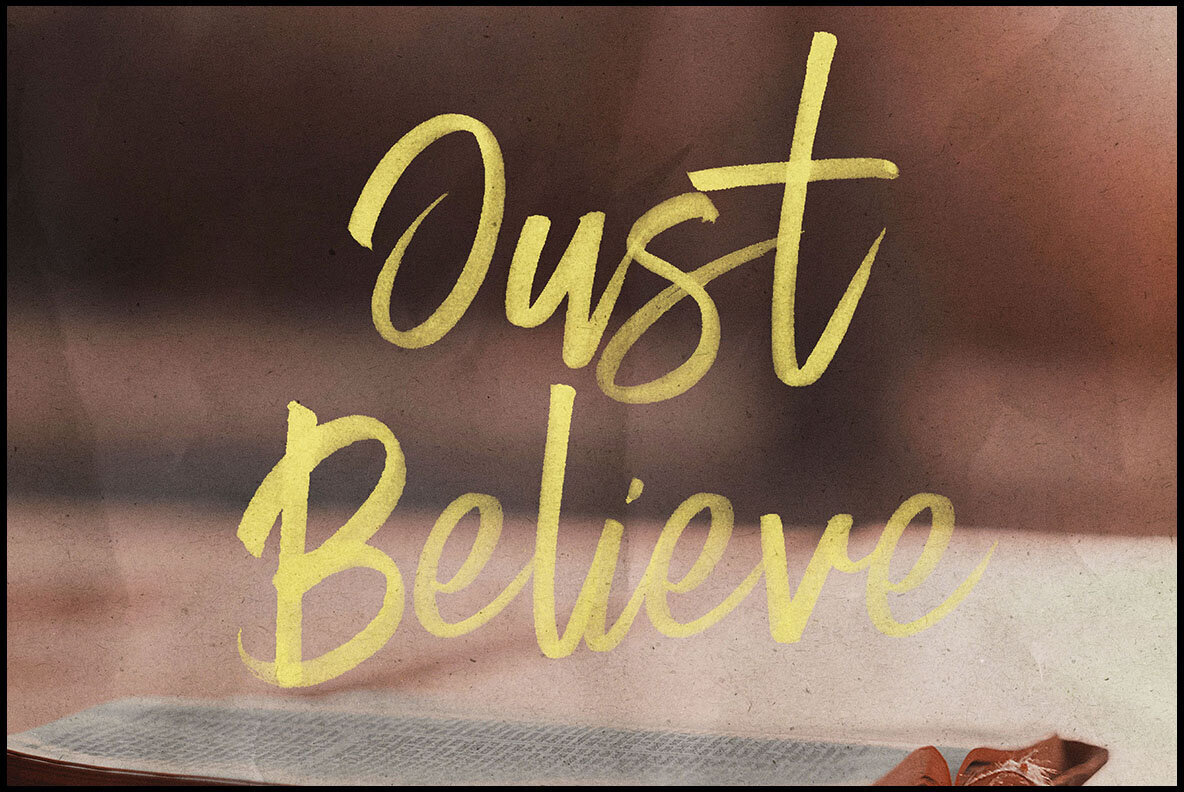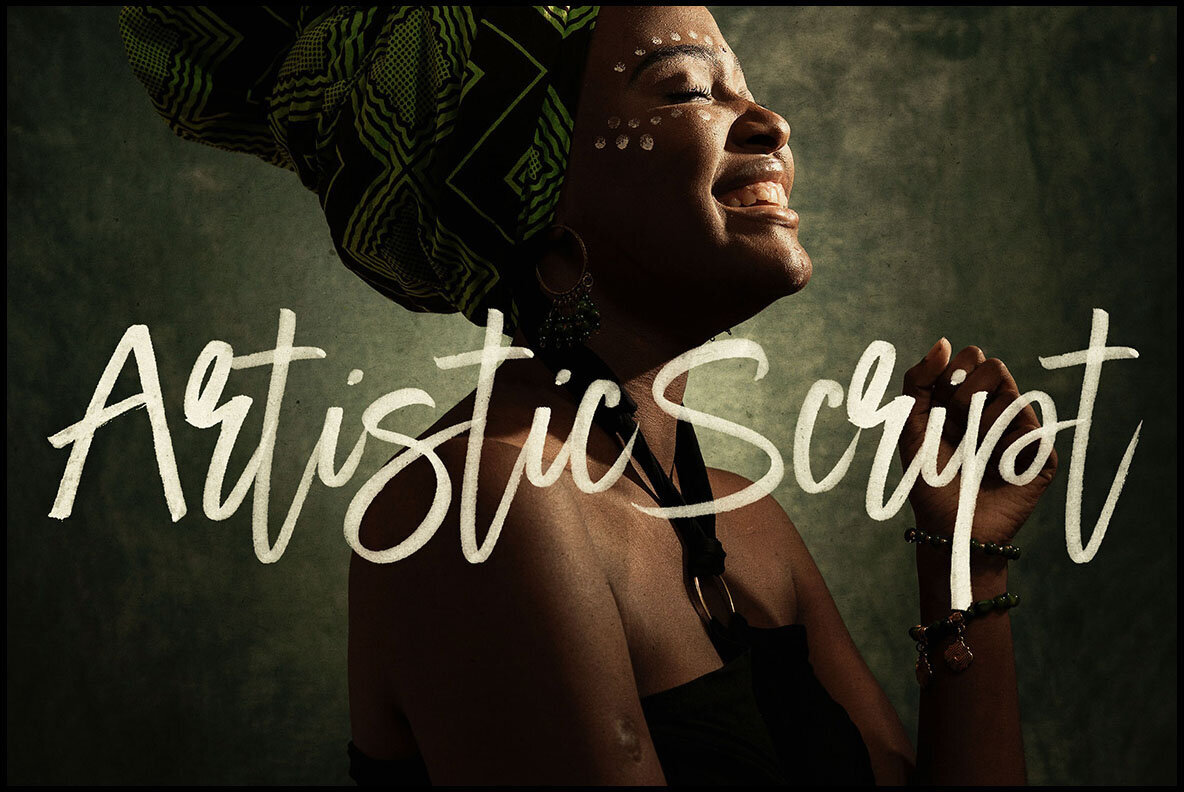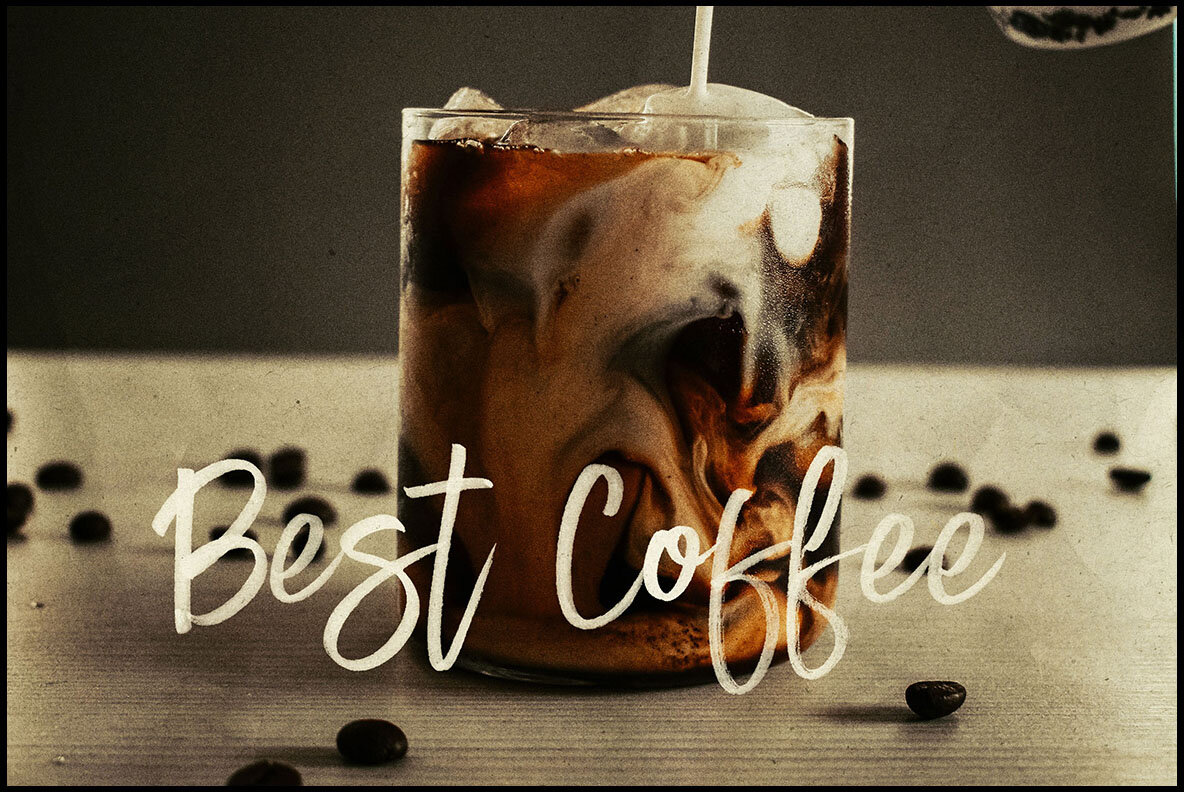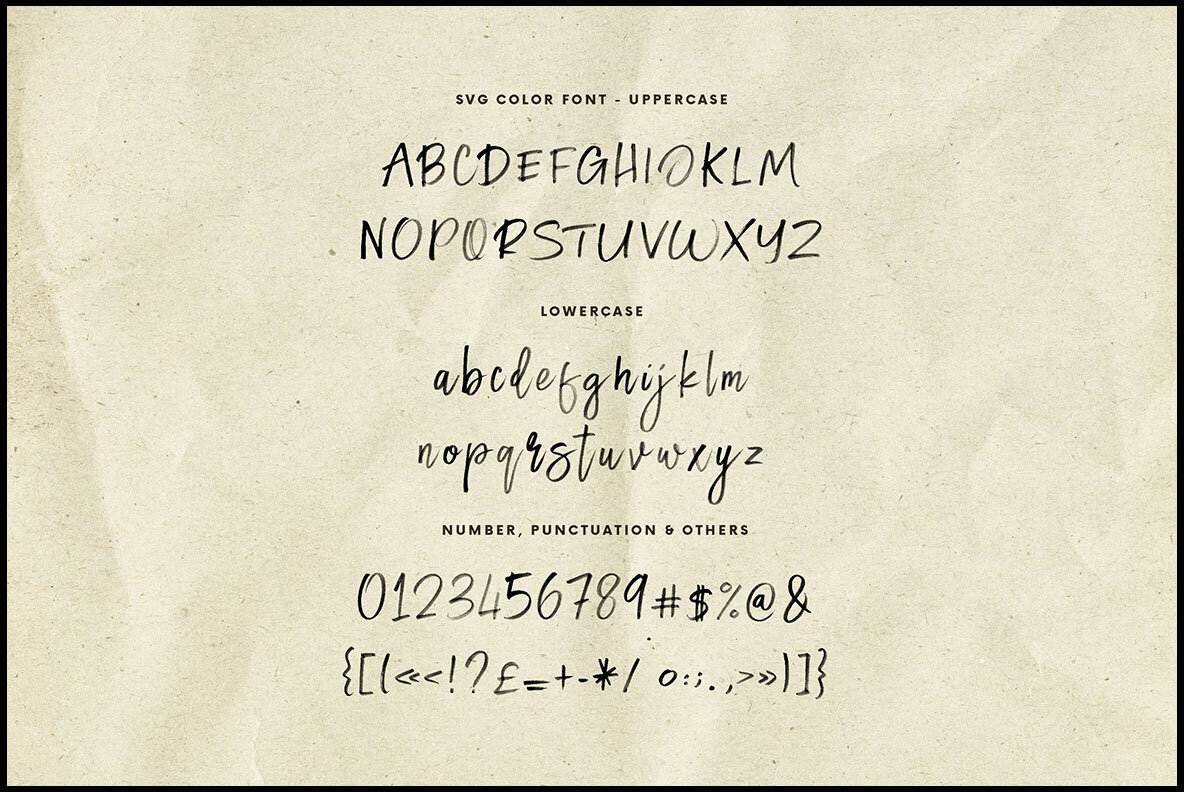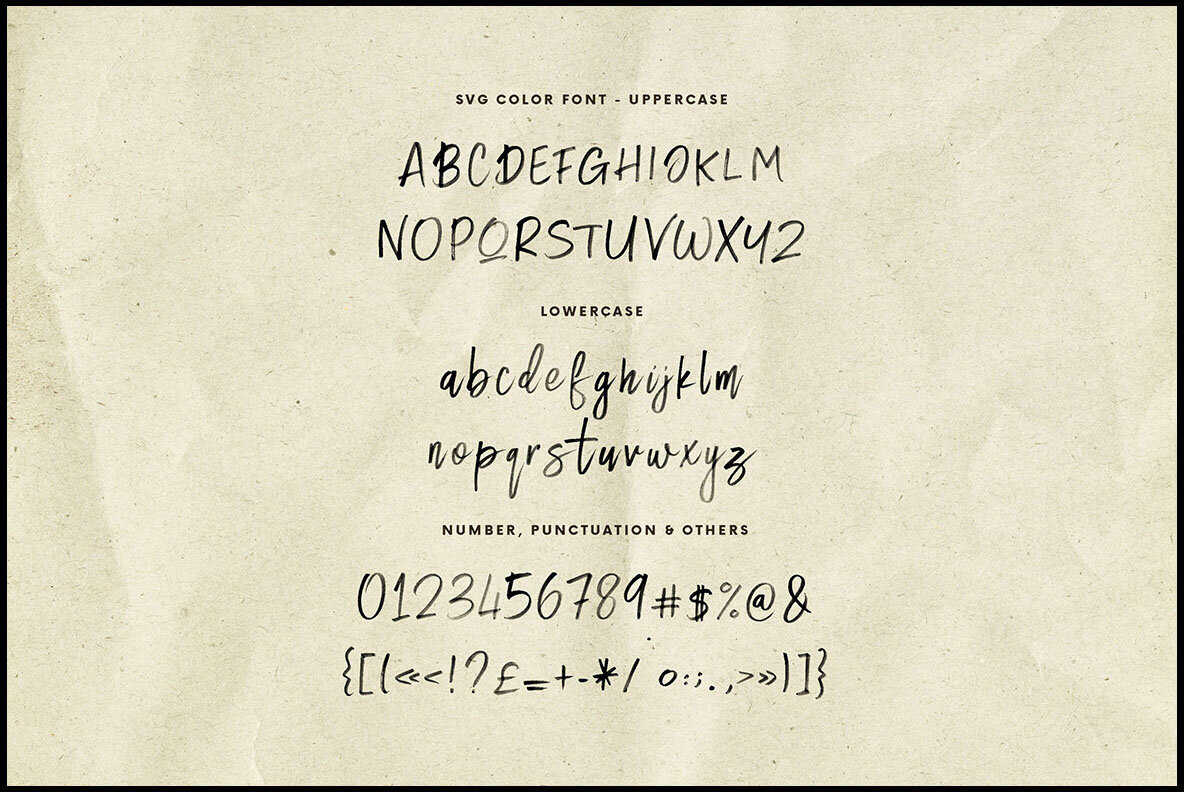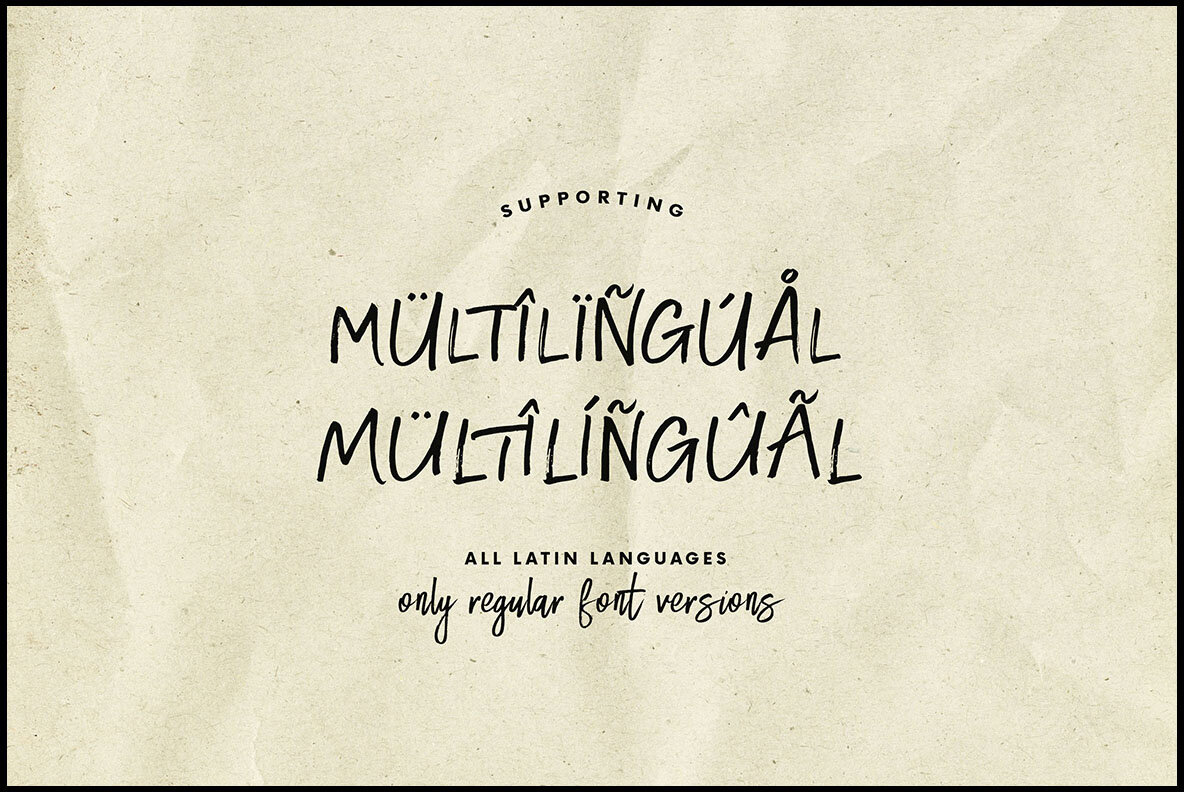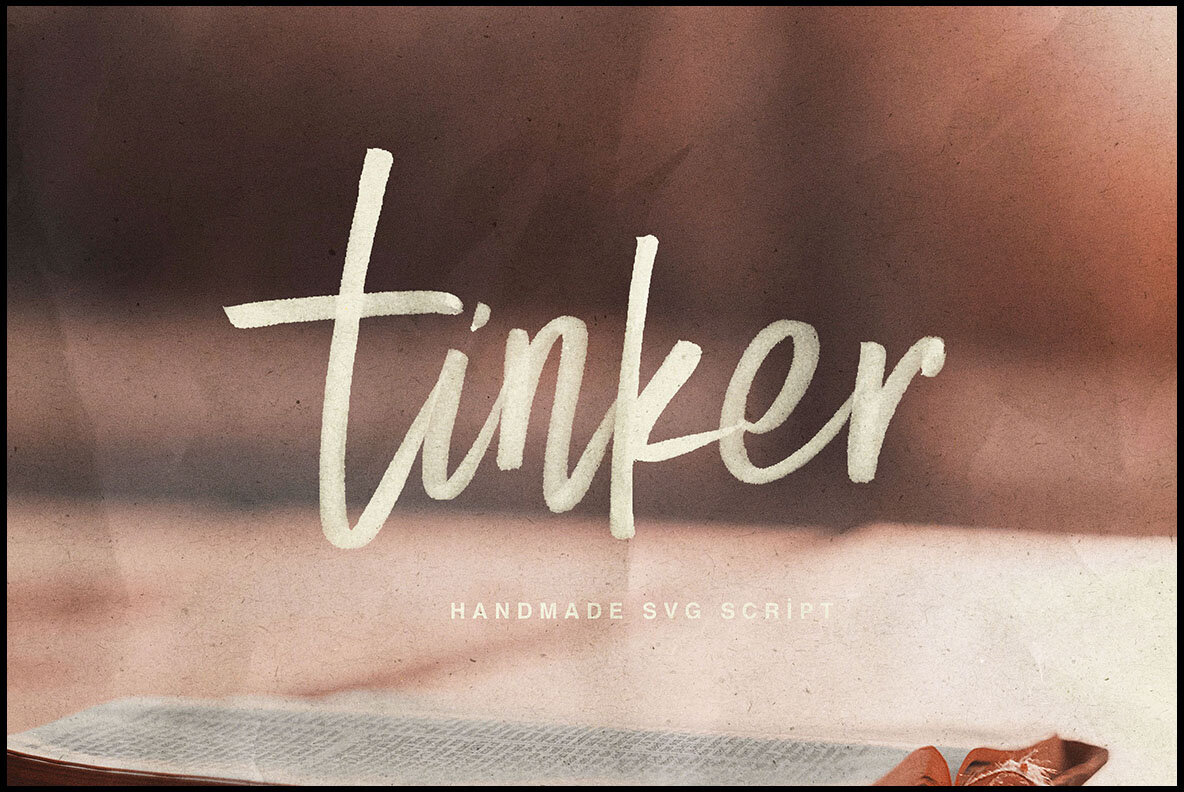
Tinker Font
Tinker by Peter Olexa is a brush, rough, or grunge style script display font designed to elevate your creative projects. Handwritten with an organic brush marker, Tinker is perfect for grunge, urban, or artistic designs. Color or SVG fonts are an emerging technology. They are compatible with Photoshop CC 2017+, Illustrator CC 2018, and some Mac applications.Tinker Script: Brush Style Script for Creative Projects